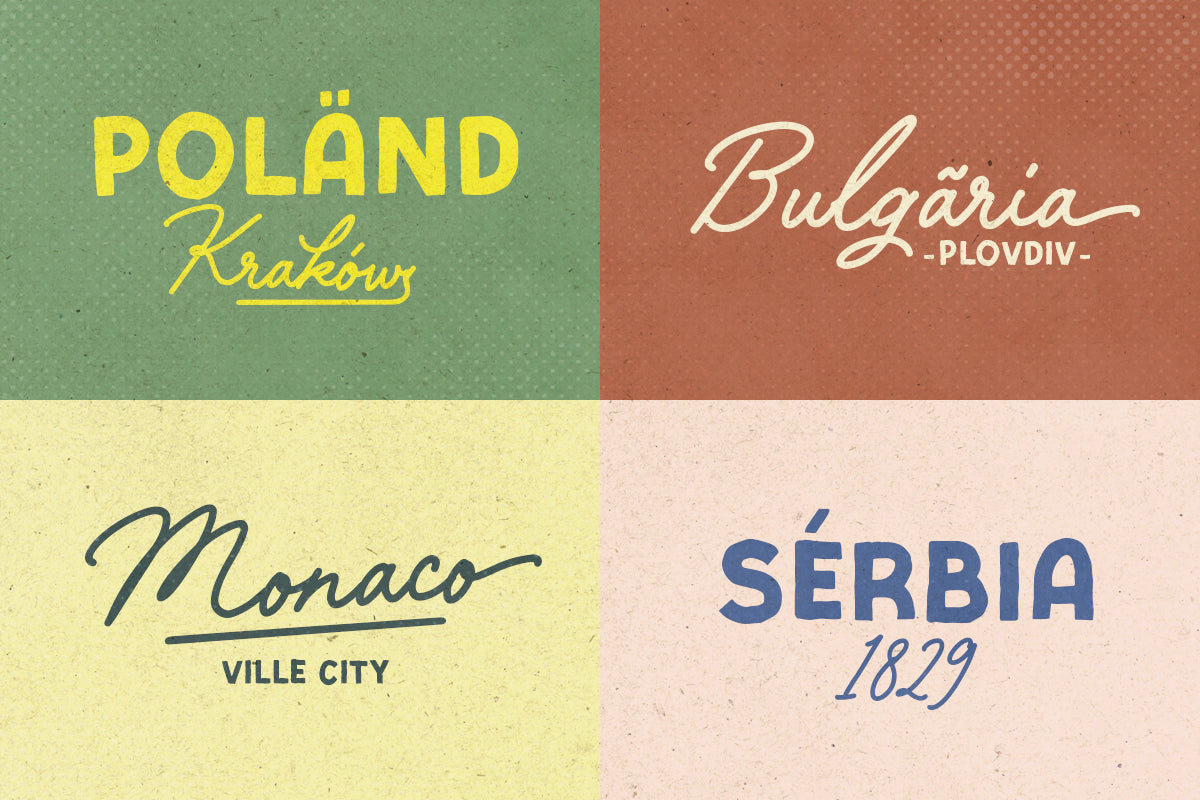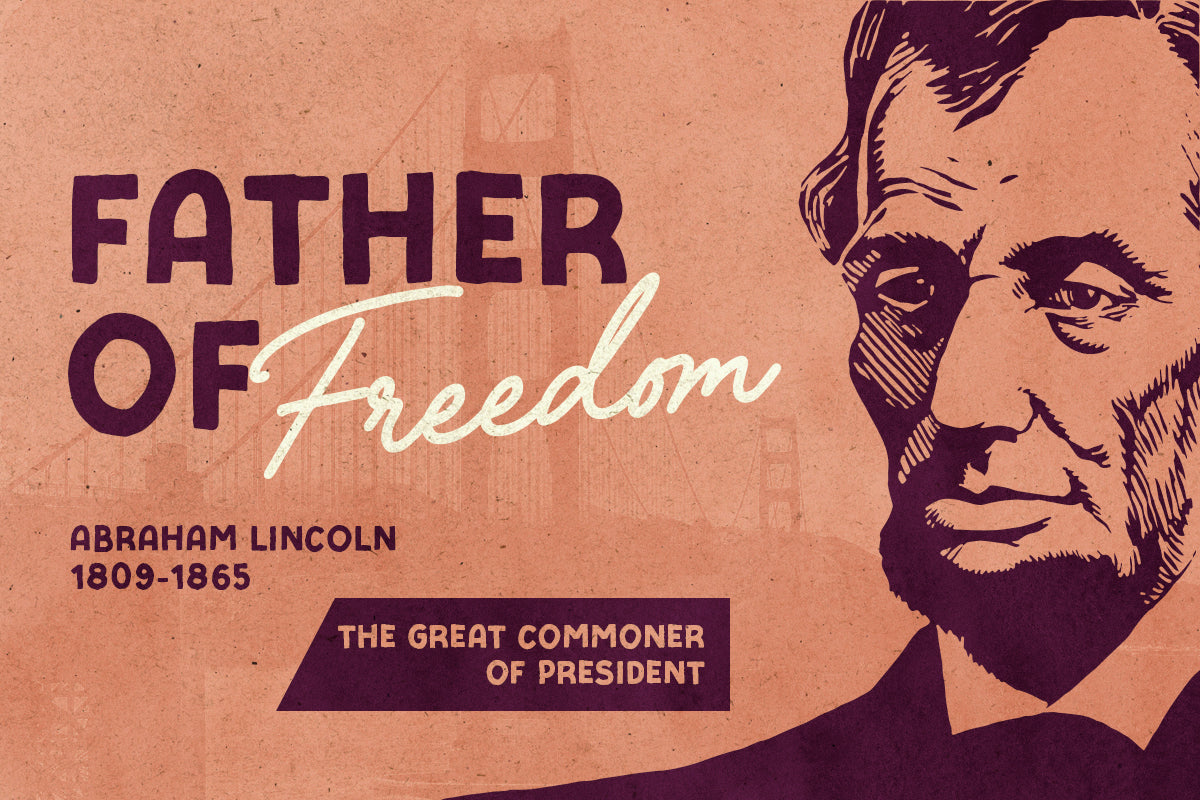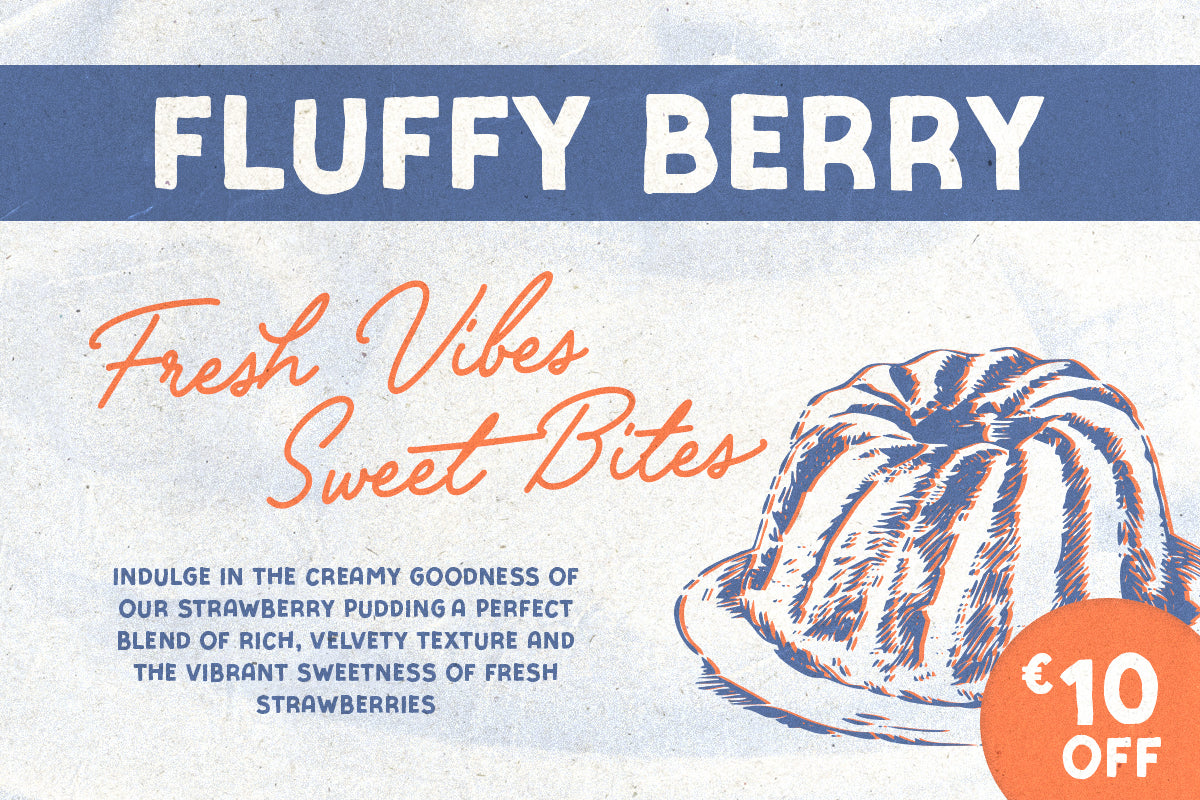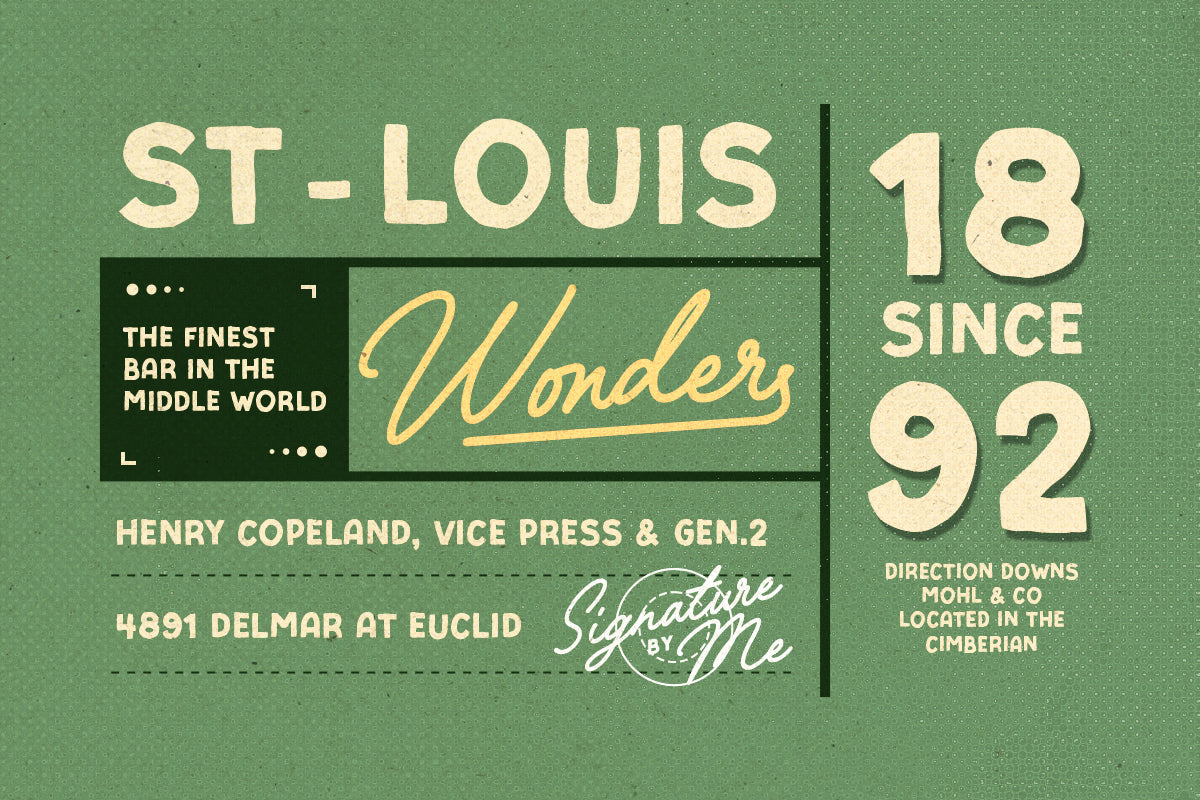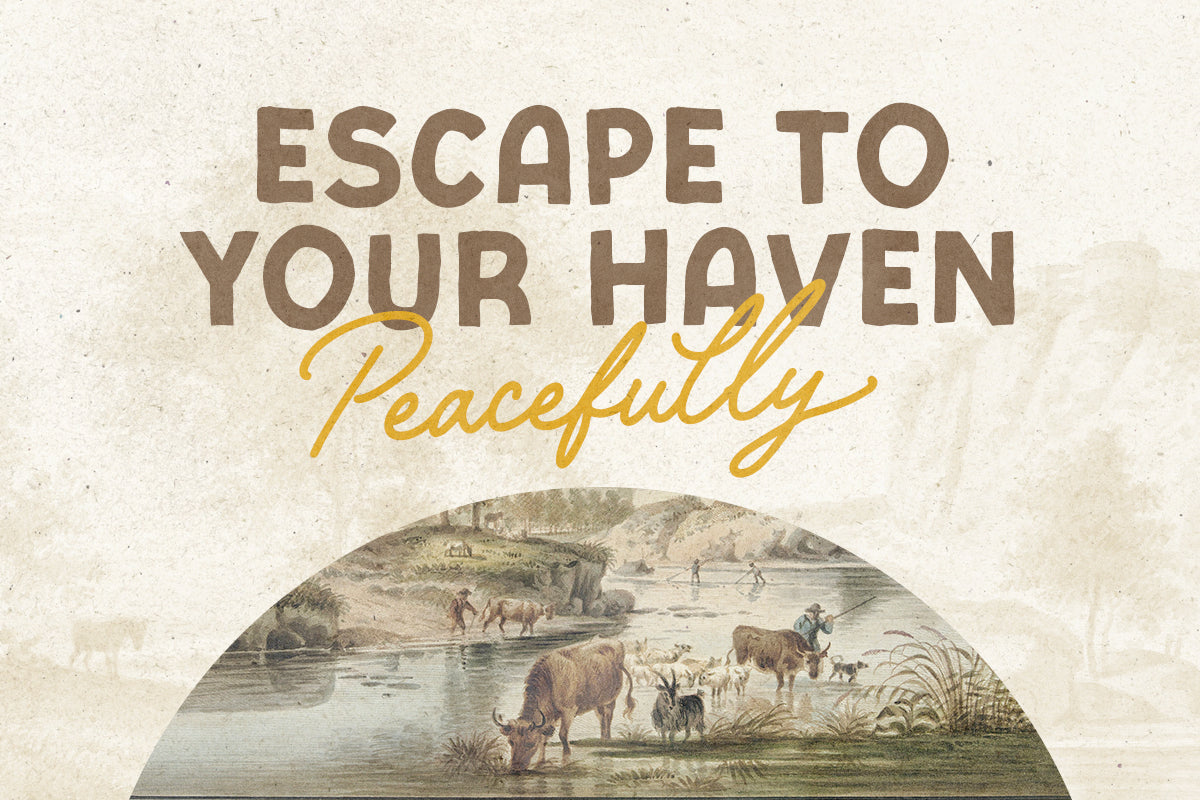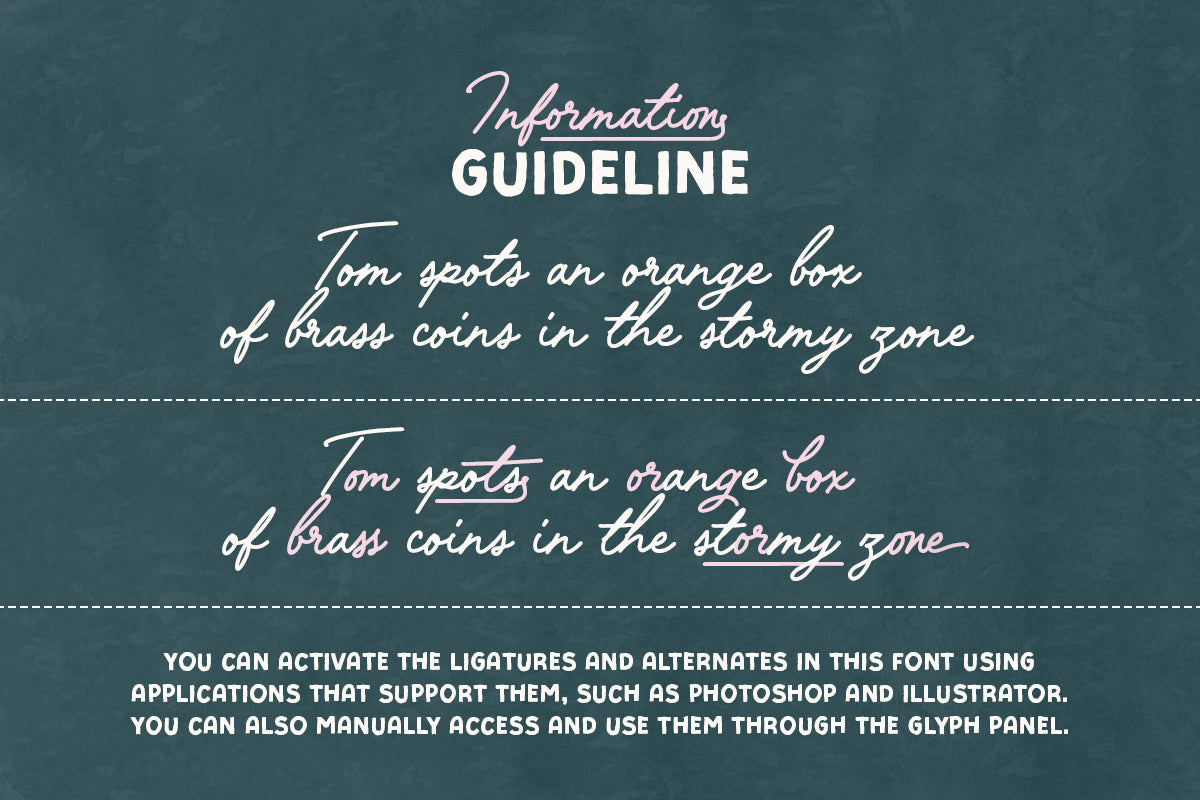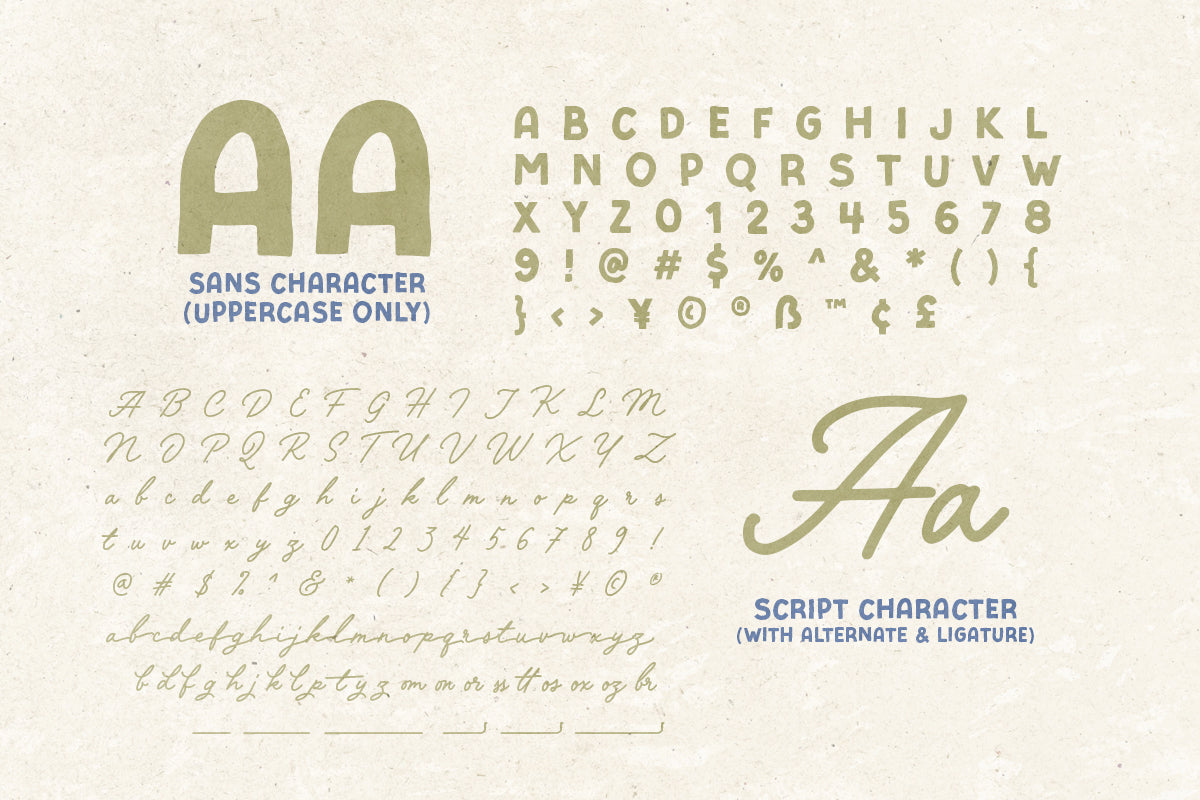
Vintage Postman - Handmade Font Duo
Vintage Postman is a handmade font duo featuring a bold sans and a monoline script, designed to provide retro and vintage aesthetics. It includes alternates, ligatures, and supports multiple languages, making it versatile for various design projects.